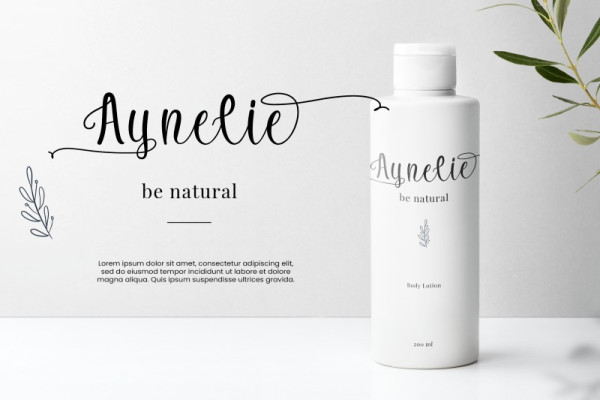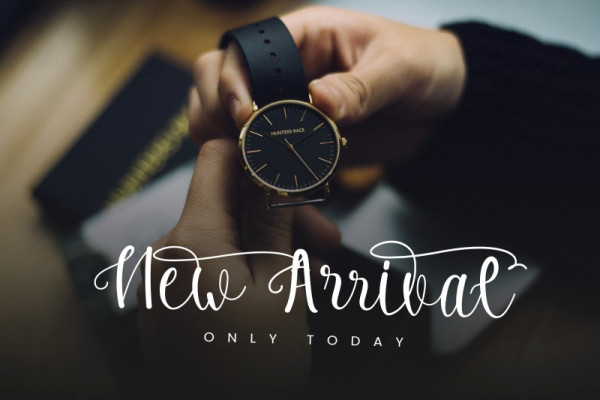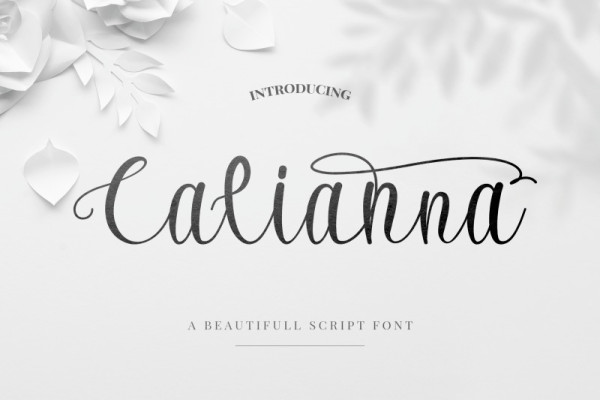
Calianna Font
Calianna Font, natural looking handwritten font with large handwriting! The Calianna Font handwritten font is meant to give a natural, fresh handwritten look to the designs you type. To make your designs look more natural and unique, Calianna handwriting has a choice of built-in alternative ligatures and letters. Only Calianna handwriting actually has an alternate uppercase & lowercase letter, so you’re guaranteed to find the right feel for your project. These are all provided as additional fonts for people without special software that supports Opentype. This collection helps you hit your target with your design projects. Perfect for branding, prints, t-shirts or posters.